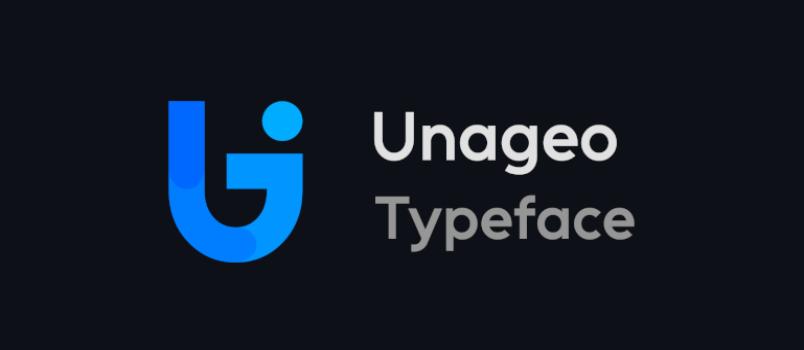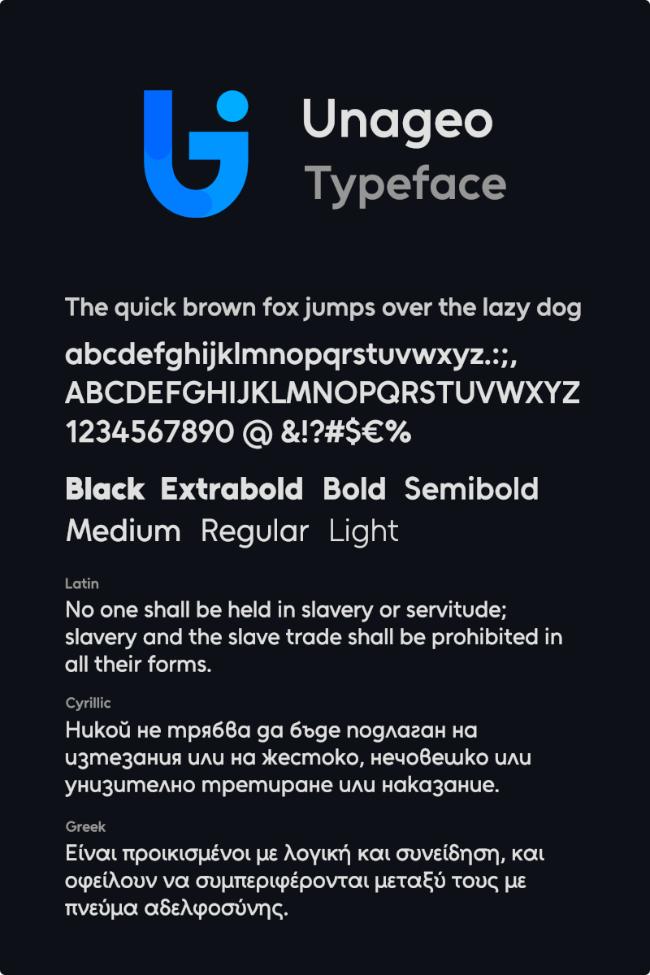
Typography plays a powerful role in how we perceive a brand, product, or message—and the Unageo font is a brilliant example of how type can be both functional and aesthetically striking. Designed with precision and clarity, Unageo is a modern geometric sans-serif font that offers a clean, minimal feel with a professional tone.
This font draws inspiration from classic geometric sans-serifs like Futura and Avenir but introduces a fresh balance between sharp geometry and optical friendliness. It’s built with wide circular curves, consistent stroke weights, and generous spacing that make text extremely legible in both large and small sizes.
Where Unageo really shines is in its versatility. Whether you’re designing a sleek tech startup logo, clean user interface, or editorial layout, Unageo adapts effortlessly. Its structured letterforms give it a futuristic edge, while subtle humanist touches keep it from feeling too cold or mechanical.